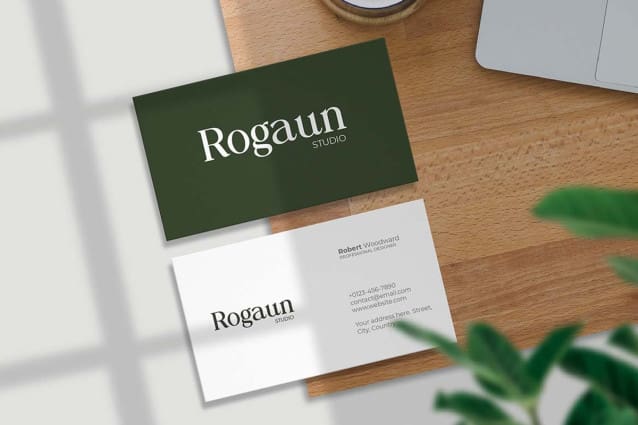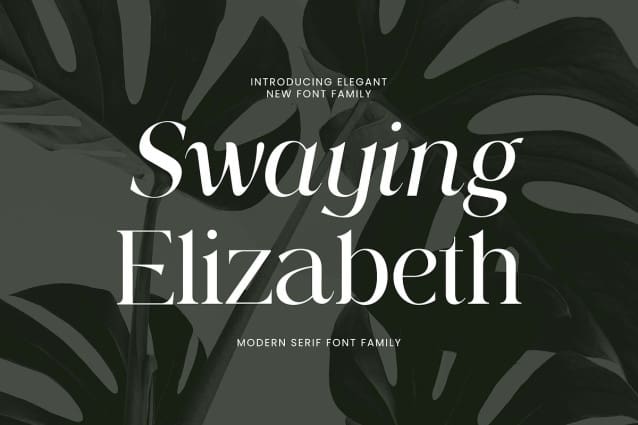
Swaying Elizabeth Font
Swaying Elizabeth Font  – The modern display font feels beautiful classy, elegant, and stylish. This font is ideally suited for a wide variety of projects, such as signature, stationery, logo, wedding, typography quotes, magazine or book covers, website headers, branding, and more. Also, fashion-related branding or editorial design displays both masculine and feminine qualities.